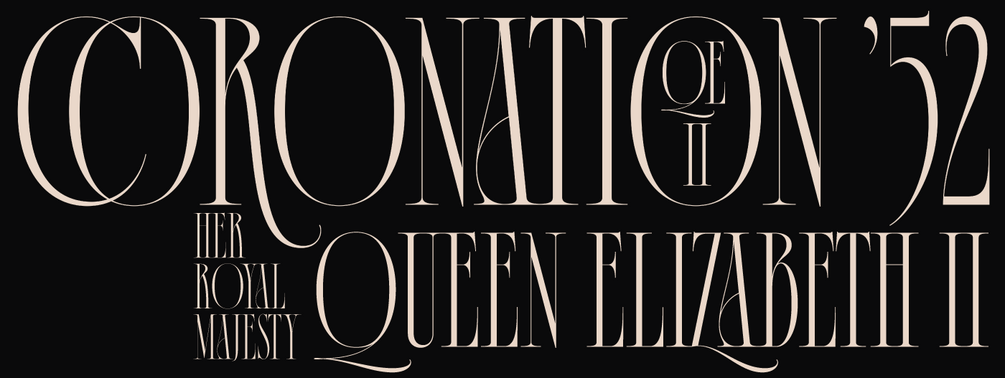
Alder Road
Alder Road is an ultra-condensed one weight serif face in the Didone tradition. With some playful art nouveau details scattered throughout this typeface is perfect for display projects.